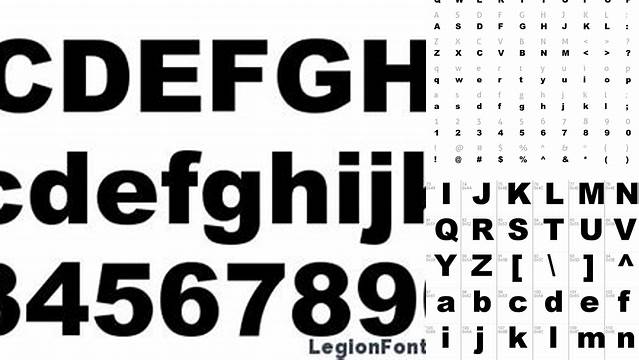
Arial MT Std Black Font: Free Download & Guide
What is the Arial MT Std Black Font?
First things first, what exactly is the Arial MT Std Black font? Well, it's a bold, heavy weight variation of the classic Arial font. Think of Arial as the more approachable sibling of Helvetica – they're both sans-serif fonts, meaning they don't have those little decorative strokes (serifs) at the ends of the letters. Arial, however, is known for being slightly more rounded and friendlier in appearance. The 'Black' version takes this a step further, making each character thick and attention-grabbing. This makes the Arial MT Std Black font ideal for headlines, titles, and any design element where you want to make a strong visual statement. The "MT Std" part of the name refers to "Monotype," the company that designed and released this font. So, in essence, you're getting a high-quality, professionally designed font that's both readable and impactful. This font is used across various platforms. Arial MT Std Black is a workhorse. It's incredibly versatile and can be applied in a plethora of situations from branding to the creation of impactful posters. Its clean lines and bold presence ensure readability at any size and from any distance. This particular variant is the heavy hitter of the Arial family, commanding attention with its intense weight. Because of its boldness, it is best suited for larger text applications where clarity is key. Imagine it on a billboard, in a book title, or in a powerful headline—all instances where you need a font that screams "look at me!" This typeface doesn't just sit there; it makes a statement, offering a modern yet familiar feel that resonates with a wide audience. It's often chosen to provide a stark contrast when paired with lighter font weights, thereby enhancing visual hierarchy. Its robust character makes it an ideal choice for any project. The font's sheer weight demands attention, ensuring whatever it is used for is instantly recognizable. Whether you are crafting an eye-catching advertisement or creating a professional presentation, Arial MT Std Black adds a touch of authority and aesthetic appeal. It has become a staple in the design industry, especially for those seeking a font that is impactful, easy to read, and instantly recognizable.
Where Can You Use the Arial MT Std Black Font?
Guys, the Arial MT Std Black font is super versatile! You can use it in a ton of different places. Its applications are extensive, spanning both digital and print media. From web design to document creation, this typeface offers a blend of versatility and impact. Let's break down some of the most common applications:
- Headlines and Titles: As we mentioned earlier, the bold weight of the font makes it perfect for grabbing attention. Think website headers, book titles, or even the main text on a poster.
- Posters and Flyers: Need to promote an event? The Arial MT Std Black font will help your message stand out. Its strong presence ensures that your text is visible from a distance.
- Logos and Branding: While not always the primary font, it can be used in logos or as a supporting font to create a strong brand identity.
- Presentations: Make your slides pop! Using the Arial MT Std Black font for titles and key points can help keep your audience engaged.
- Web Design: You can use this font for headings, especially when you want a modern and clean look.
- Print Materials: From magazines to brochures, the Arial MT Std Black font can make your print materials look professional and eye-catching.
Its clarity and boldness make it an excellent choice for any context where readability and visual impact are paramount. It is used extensively for creating eye-catching titles and headlines, and its versatility makes it suitable for diverse projects. The key is understanding its impact. The font's design is clean and straightforward, making it easily readable. The Arial MT Std Black font can be found in various commercial and personal contexts. In advertising, the font's bold nature is utilized for headlines to make a direct impact on the viewer. Many designers prefer the clean lines of Arial to convey a feeling of modernity and efficiency. It is frequently used in websites, applications, and other digital content. It is also an excellent option for print materials, like posters, flyers, and brochures, because of its visibility and readability from a distance. The boldness of the font contributes to a sense of authority and professionalism, making it a good choice for businesses and organizations. Many people choose Arial MT Std Black for its ability to maintain clarity at various sizes. The choice to use it also signifies professionalism.
Alternatives to Arial MT Std Black
While Arial MT Std Black font is fantastic, sometimes you might want to switch things up. Here are some awesome alternatives:
- Helvetica Black: As we mentioned before, Arial and Helvetica are very similar. Helvetica Black is a great alternative if you want something with a slightly different feel.
- Roboto Black: Roboto is a modern, clean sans-serif font that's super popular. The Black version is perfect for bold headings.
- Impact: Impact is another bold, blocky sans-serif font that's great for making a statement. It's slightly wider than Arial, giving it a different look.
- Bebas Neue: This is a popular, free sans-serif font with a strong presence.
- Poppins Black: Poppins is another popular font that comes in a black weight. It’s a geometric sans-serif font and is perfect for clean, modern designs.